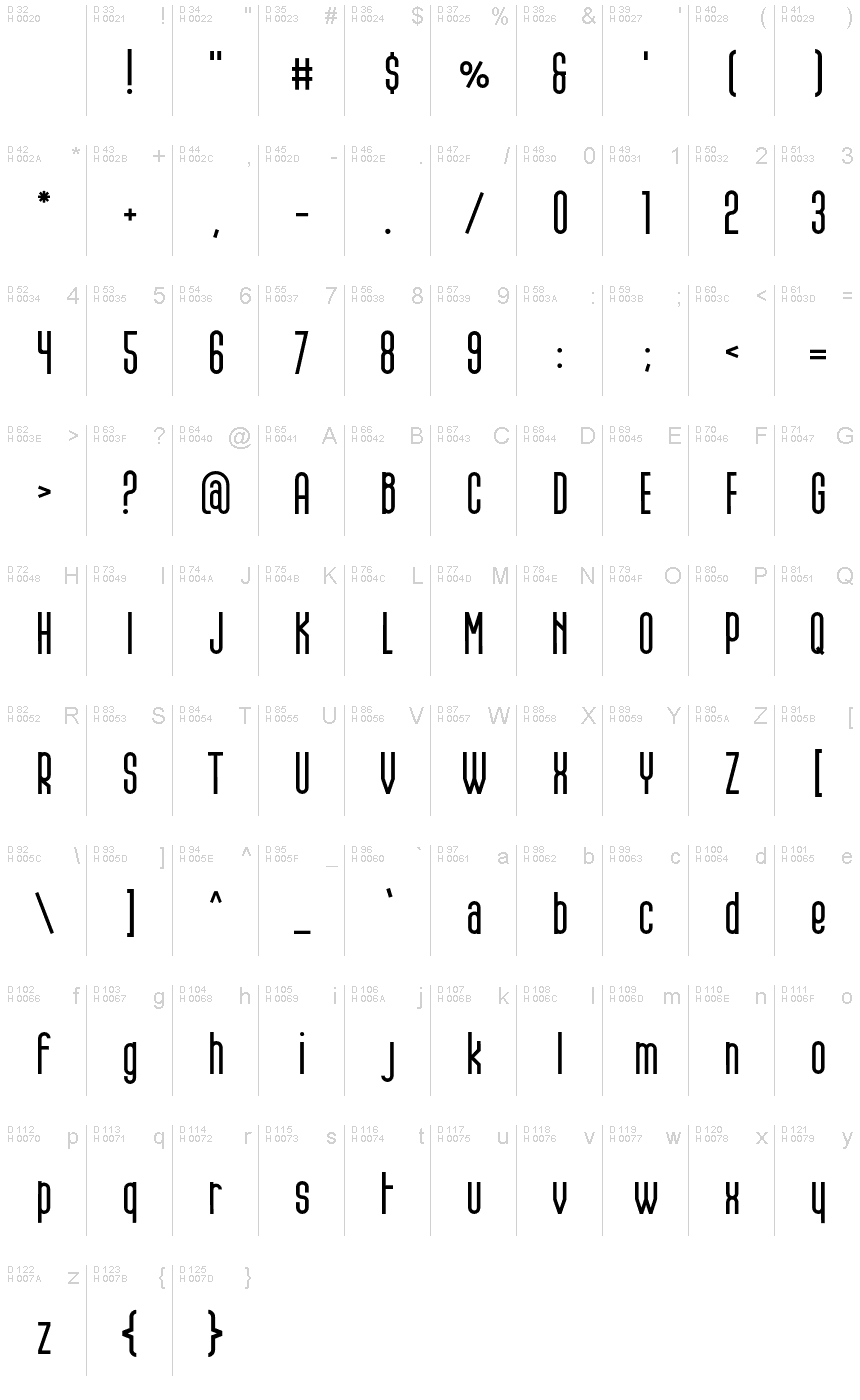
Nevduplenysh Regular
Meet Nevduplenysh, the retro sans serif display font that is perfect for any project in need of a touch of nostalgia. Designed with a semi-light weight and extra-condensed width, this typeface exudes elegance while maintaining readability. From vintage posters to modern web design, Nevduplenysh's bold and clean lines make it suitable for a wide range of projects. Whether you're designing a logo or creating a magazine spread, Nevduplenysh will ensure your message is conveyed with style and sophistication. Add some personality to your next project with Nevduplenysh - the font that stands out from the rest.